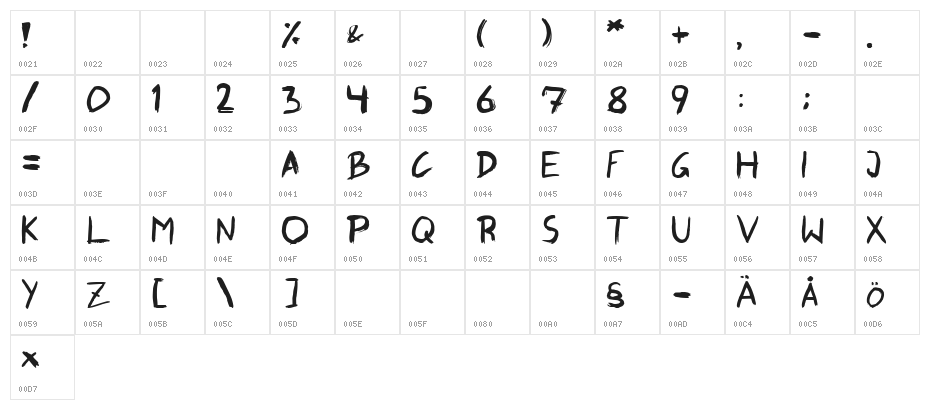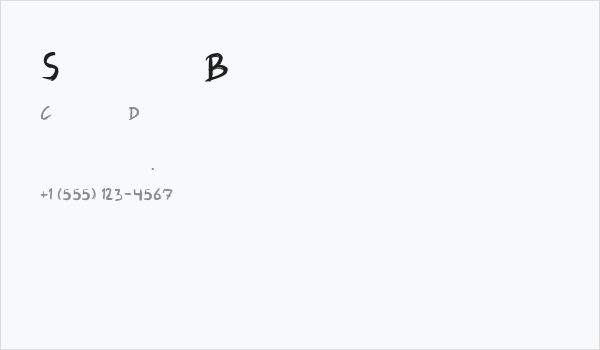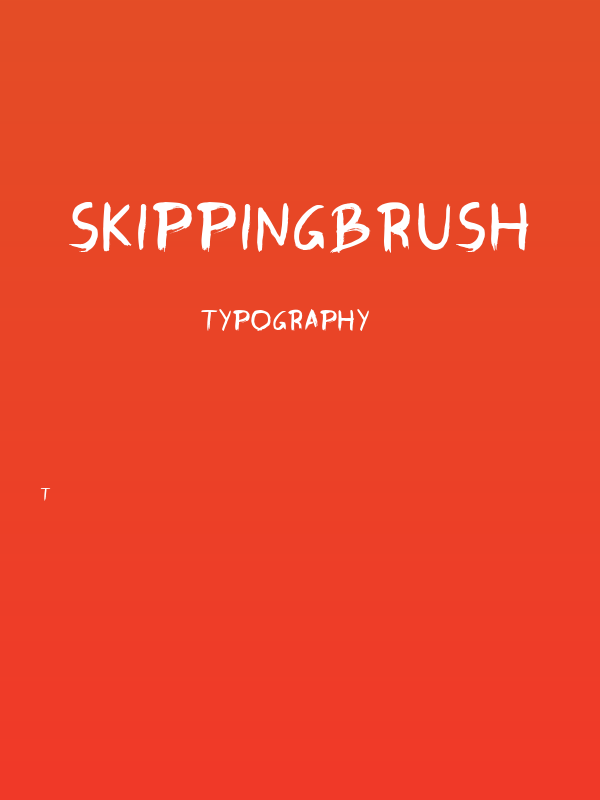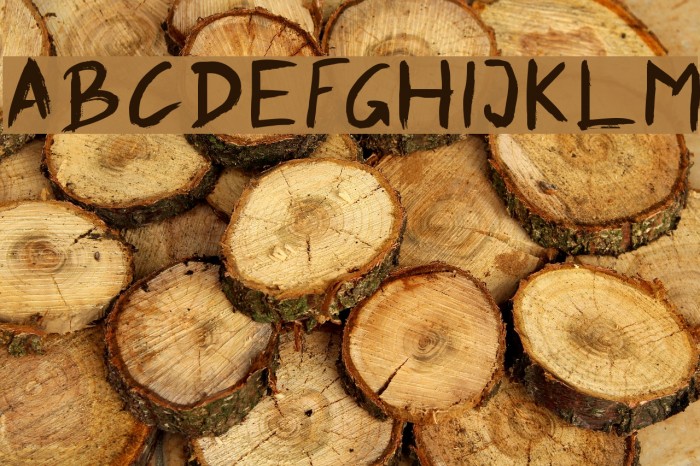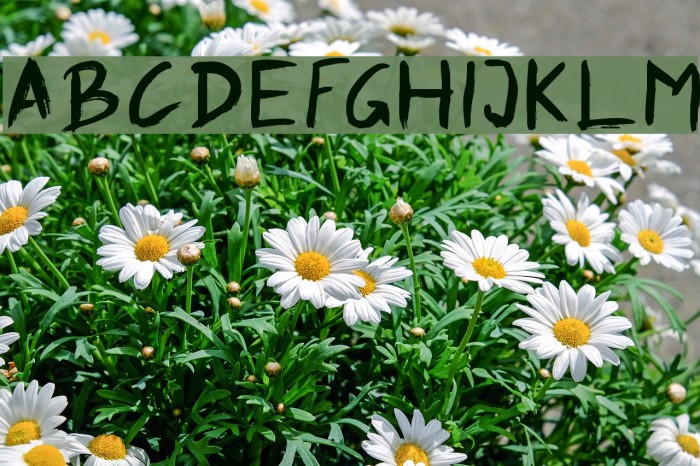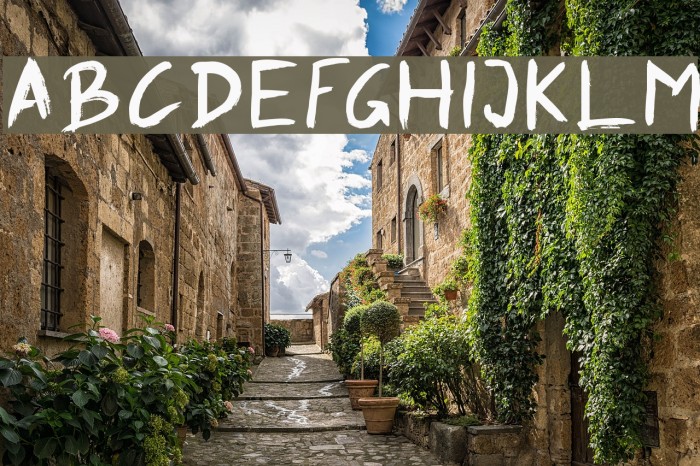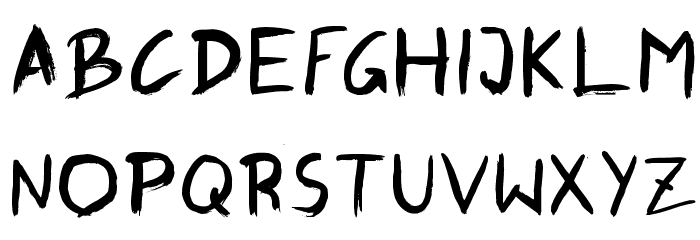
SkippingBrush Font
SkippingBrush Description
This font exudes a dynamic and energetic feel, characterized by its brush-like strokes that give it a hand-painted appearance. The letters are bold and slightly irregular, adding a sense of movement and spontaneity. The uppercase and lowercase letters maintain a consistent style, with the uppercase being more pronounced. Numbers and special characters follow the same aesthetic, ensuring uniformity across all glyphs. The strokes vary in thickness, providing a medium contrast that enhances readability while maintaining the artistic flair. This font is ideal for projects that require a personal touch or a creative edge.
| Proposed Projects | Ideal for branding, posters, artistic projects, and any design needing a creative, personal touch. |